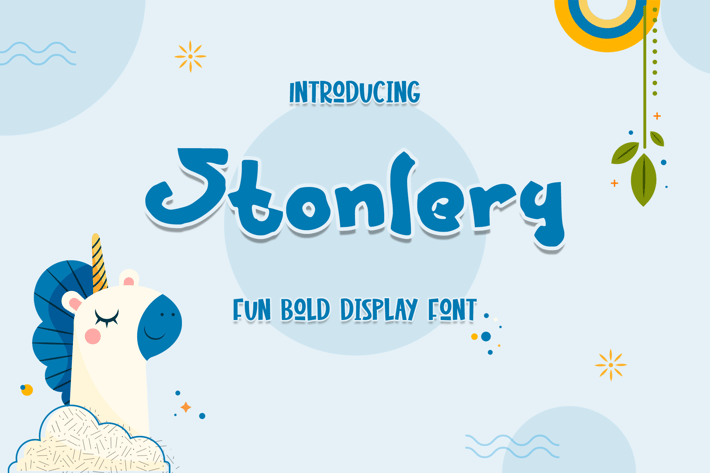
Stonlery Fun Display Font
Stonlery Display Font, is our new font and suitable for mockup or any work.
Great for
Sticker, Invitation Card, Brochure, etc.